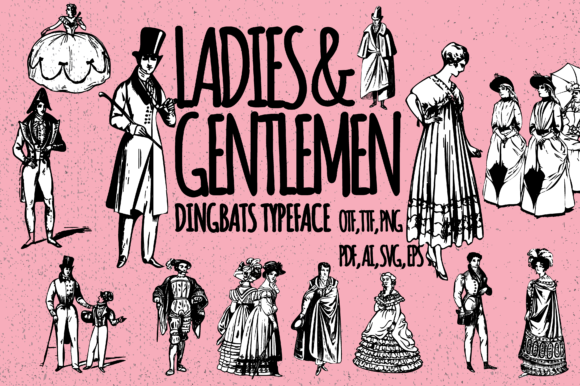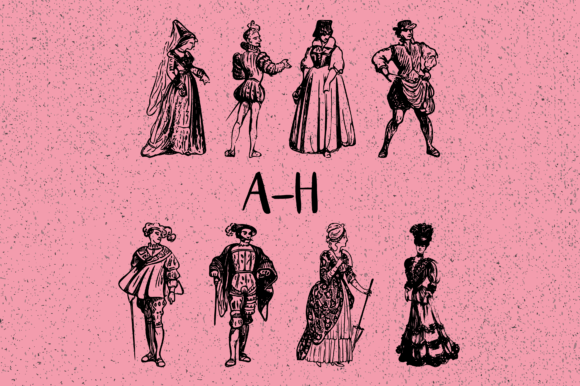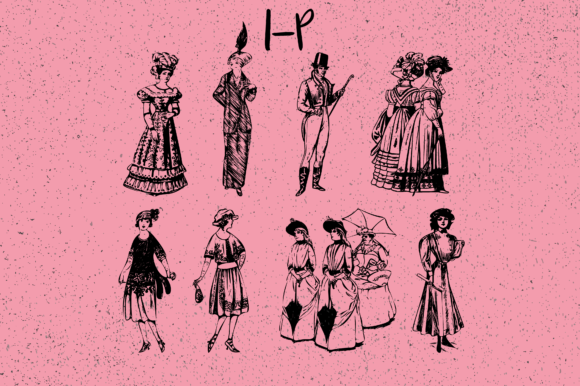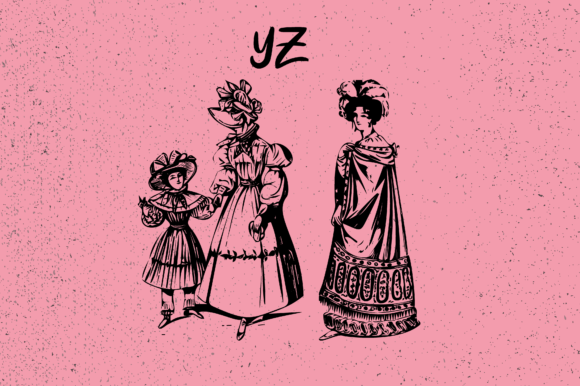
About Ladies & Gentlemen Font
Ladies & Gentlemen is an extraordinary dingbats font that brings a touch of vintage elegance to your designs. With its collection of 62 unique vintage characters, this font allows you to create stunning visuals that evoke a sense of classic charm and sophistication.
Whether you’re working on graphic design projects, branding materials, invitations, posters, or any other creative endeavor, Ladies & Gentlemen can be a valuable asset. The carefully crafted vintage characters offer a wide range of design possibilities, allowing you to add a distinctive retro vibe to your work.
To use Ladies & Gentlemen, simply type the corresponding letters or characters, and the vintage glyphs will appear. Each character has its own unique style, capturing the essence of classic typography from bygone eras. From ornate borders and frames to decorative elements and embellishments, this font provides a wealth of options to enhance your designs.
The versatility of Ladies & Gentlemen makes it suitable for various themes and styles. Whether you’re aiming for a nostalgic look, a Victorian aesthetic, or a retro-inspired design, this font can complement your vision perfectly. It adds a touch of sophistication and refinement, evoking a sense of timeless elegance.
Furthermore, Ladies & Gentlemen’s vintage characters can be scaled and resized without losing quality. This allows you to adapt the size and proportions of the glyphs to fit your design requirements, ensuring sharp and crisp visuals at any scale.
In summary, Ladies & Gentlemen is a unique dingbats font that captures the essence of vintage typography. With its collection of 62 distinctive vintage characters, it enables you to create visually stunning designs with a touch of classic elegance. Whether you’re working on branding, invitations, posters, or any other creative project, Ladies & Gentlemen can elevate your work and transport viewers to a bygone era.